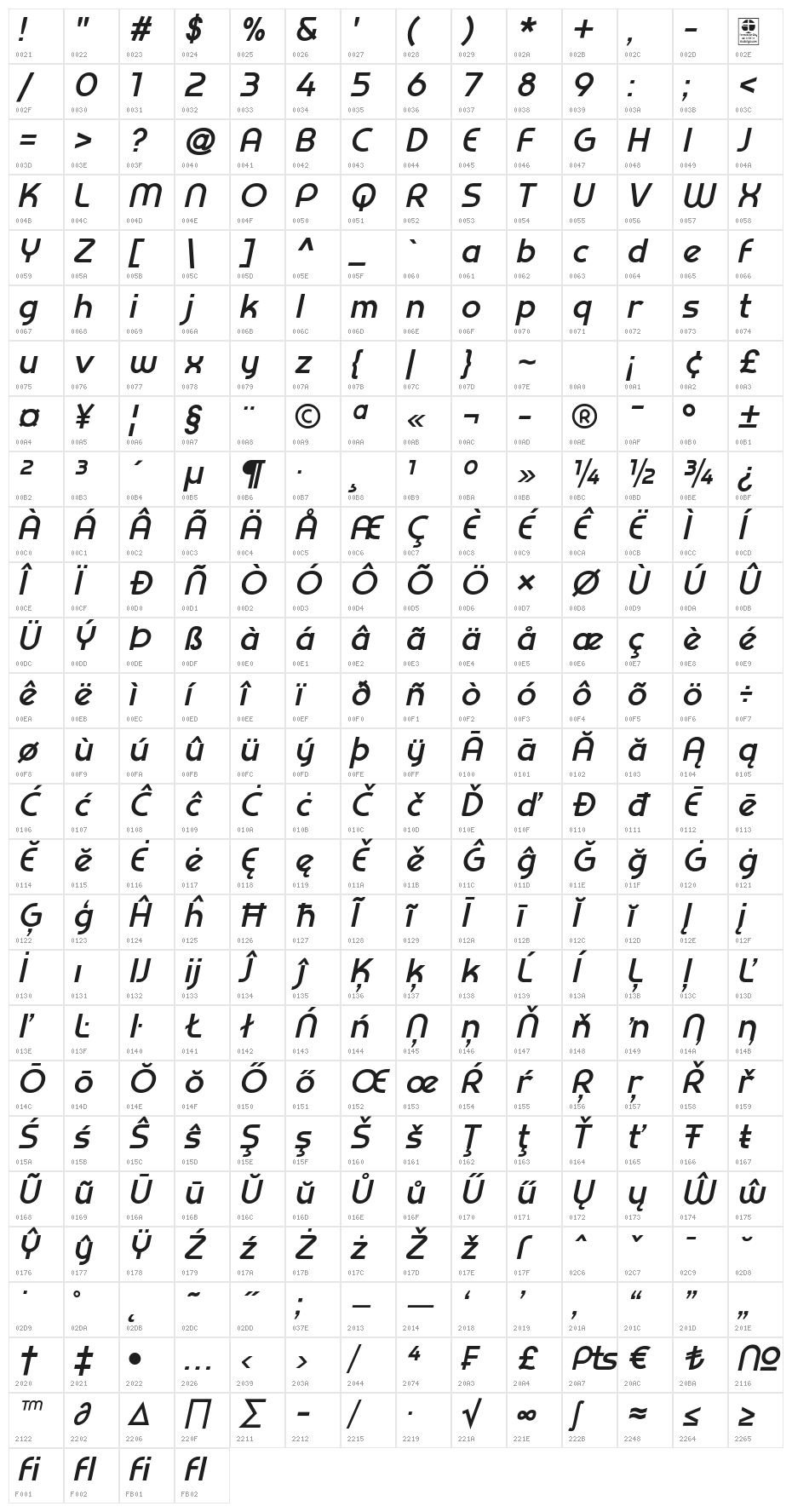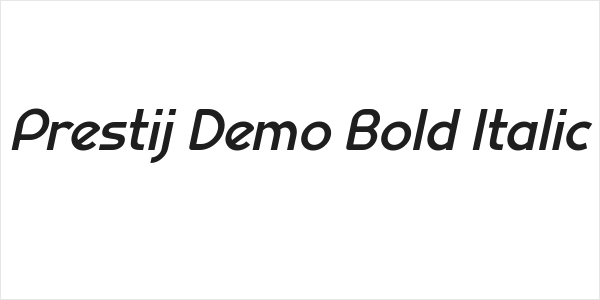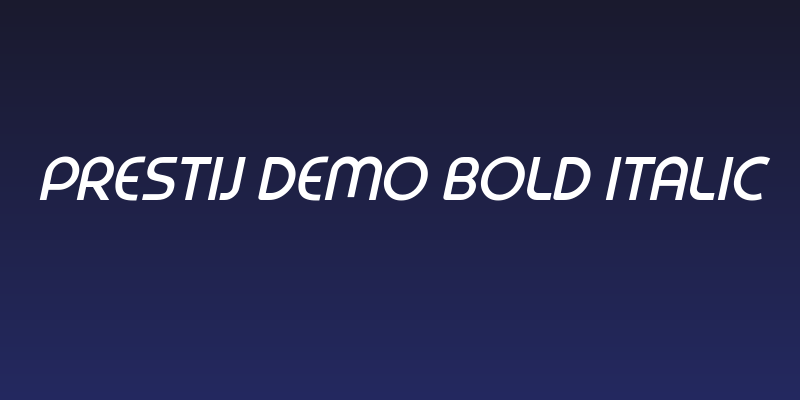
Prestij Demo Bold Italic Font
Prestij Demo Bold Italic Description
This font features a bold and italic style, characterized by its smooth curves and modern aesthetic. The letters have a forward-leaning slant, giving a sense of motion and dynamism. The strokes are consistent in thickness, providing a uniform appearance across all characters. The uppercase and lowercase letters are well-proportioned, with a slight emphasis on the rounded forms. The numerals are clear and distinct, maintaining the same bold and italicized style. Special characters are included, matching the overall design with a sleek and contemporary look.
| Use Case | Headlines, Logos, Advertising |
| Proposed Projects | Ideal for branding, advertising, and digital media projects that require a modern and dynamic typeface. |